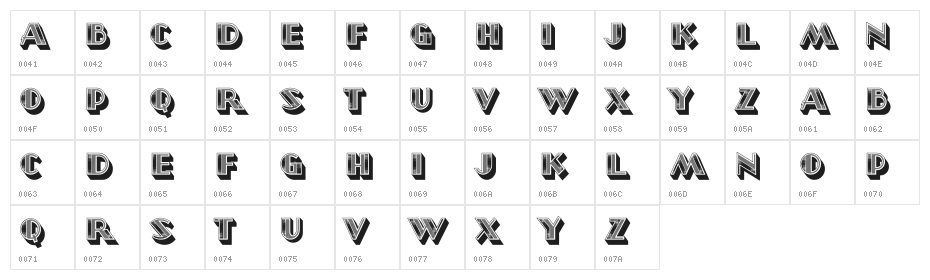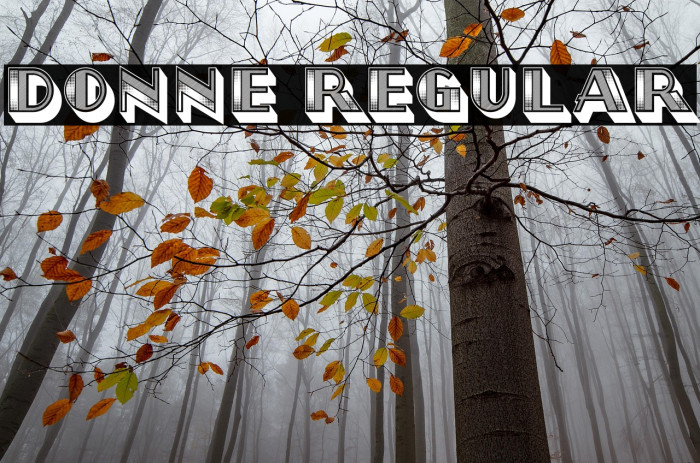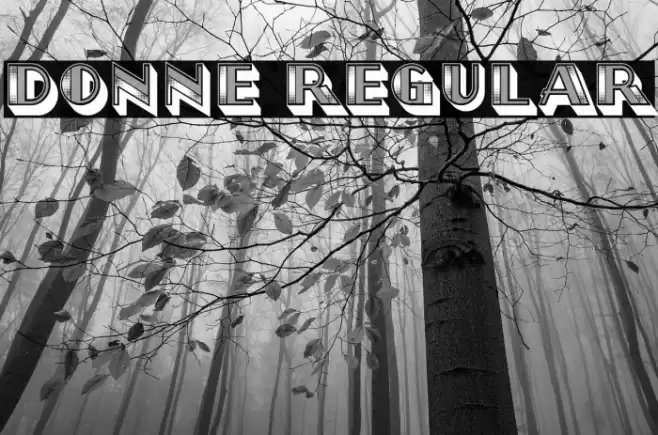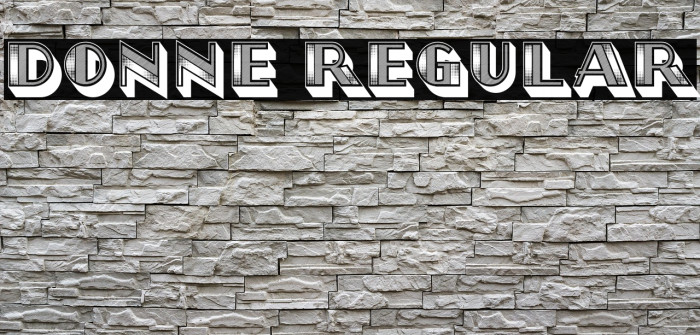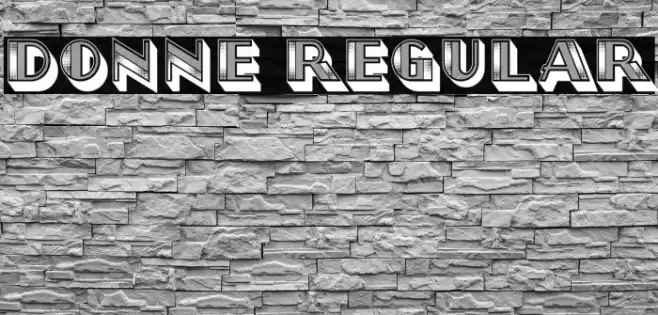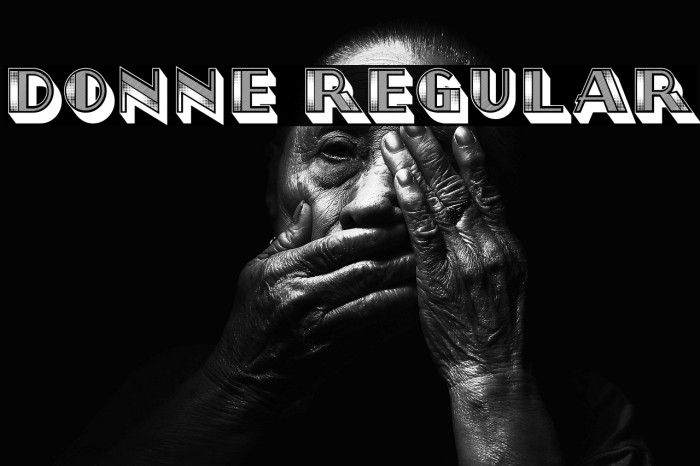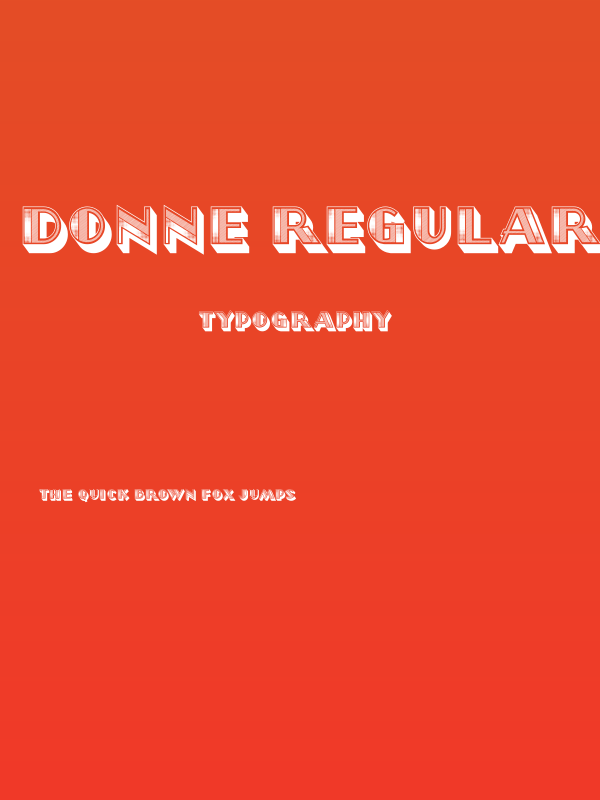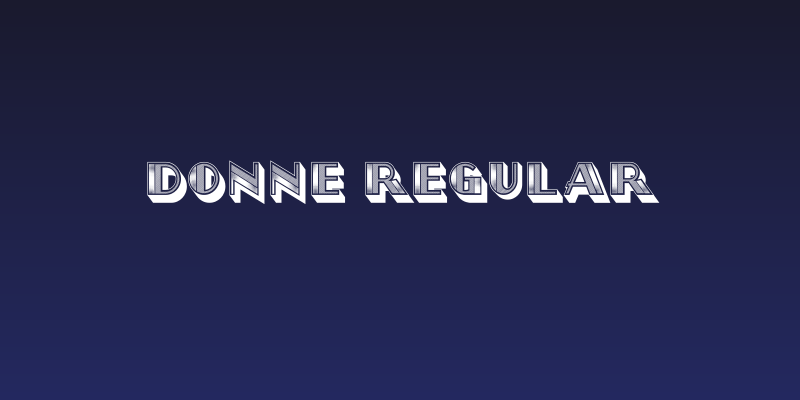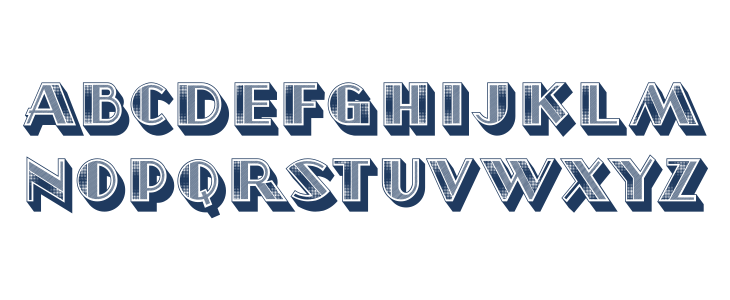
Donne Regular Font
Donne Regular Description
This font features a bold, three-dimensional design with a strong, shadowed effect that gives it a striking and impactful appearance. The letters are capitalized and exhibit a geometric style with clean lines and sharp angles. The shadowing adds depth and a sense of movement, making it ideal for attention-grabbing headlines or titles. The overall look is modern and dynamic, with a touch of retro flair due to its dimensionality. The font's structure is consistent, maintaining uniformity across all characters, which enhances its readability despite the decorative elements.